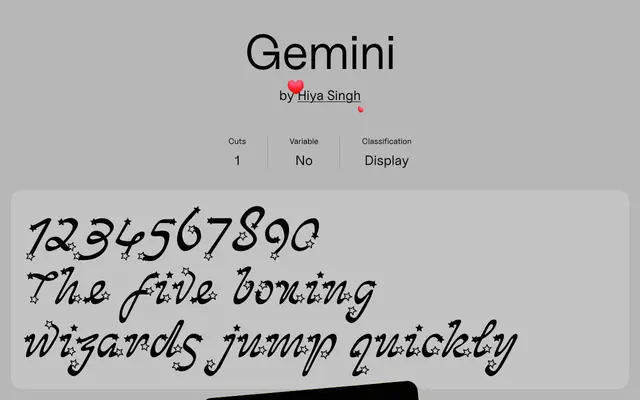
Gemini
A single-cut display typeface by Hiya Singh, released under the SIL Open Font License for free commercial and personal use.
Gemini is a display typeface designed by Hiya Singh and distributed free via Uncut under the SIL Open Font License 1.1. It ships in one cut with no variable axis or italic, keeping it a focused choice for headline work. The open licence permits commercial use, modification and redistribution with certain conditions.
Classified as Display by the foundry; a single-cut display typeface without variable or italic options, intended for headline and decorative use.